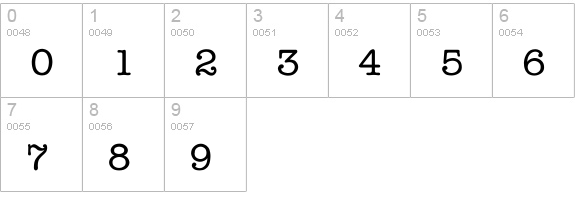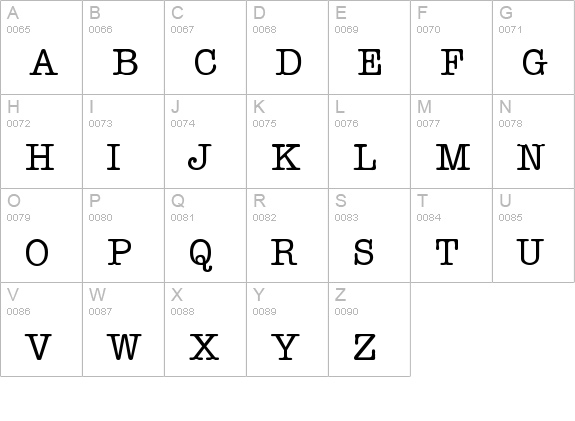
Amtype Font Details
Introducing Amtype font, a modern and stylish typeface perfect for a wide range of design projects. With its clean lines and sleek aesthetic, Amtype font exudes sophistication and elegance. This versatile font is ideal for branding, logos, posters, and more. What sets Amtype font apart is its unique blend of classic and contemporary design elements, making it a truly timeless choice for any creative endeavor. Whether you're looking to add a touch of sophistication to your next project or simply want to elevate your design game, Amtype font is sure to impress. Best of all, Amtype font is available for free download at FontsMarket.com. So go ahead and give your designs a fresh new look with this stunning typeface. Experience the beauty and elegance of Amtype font today!